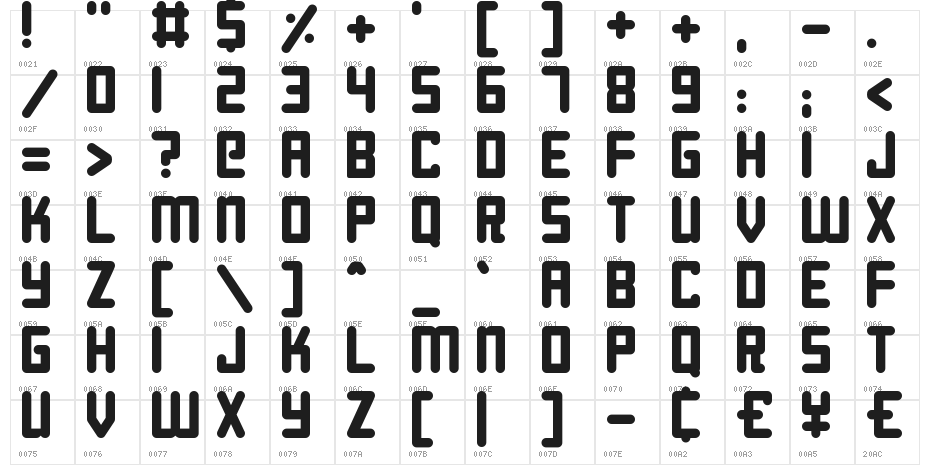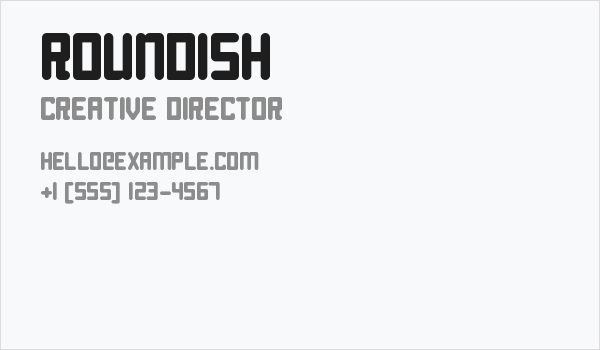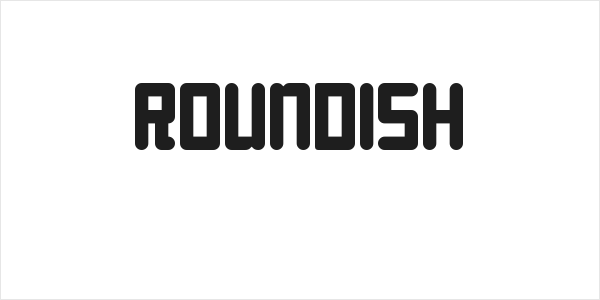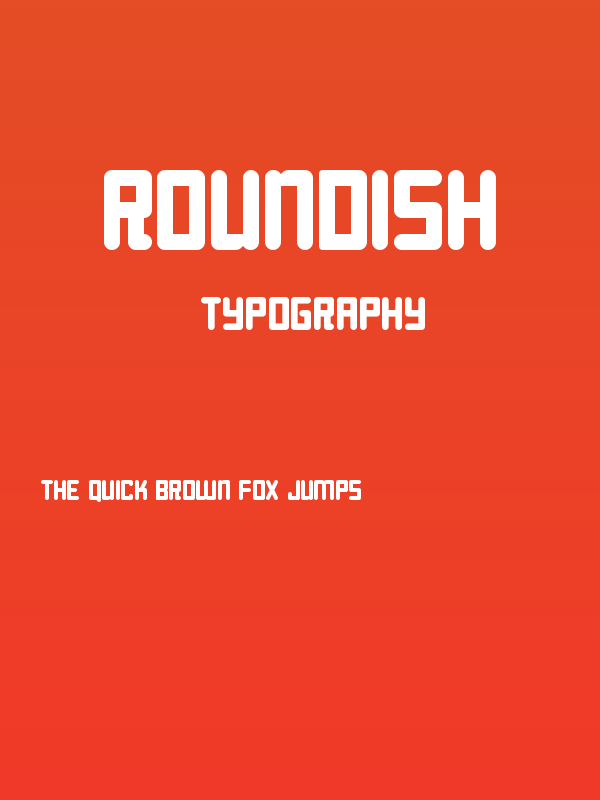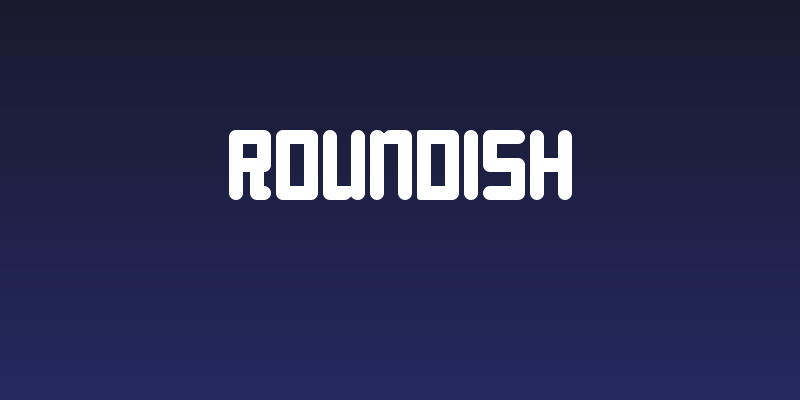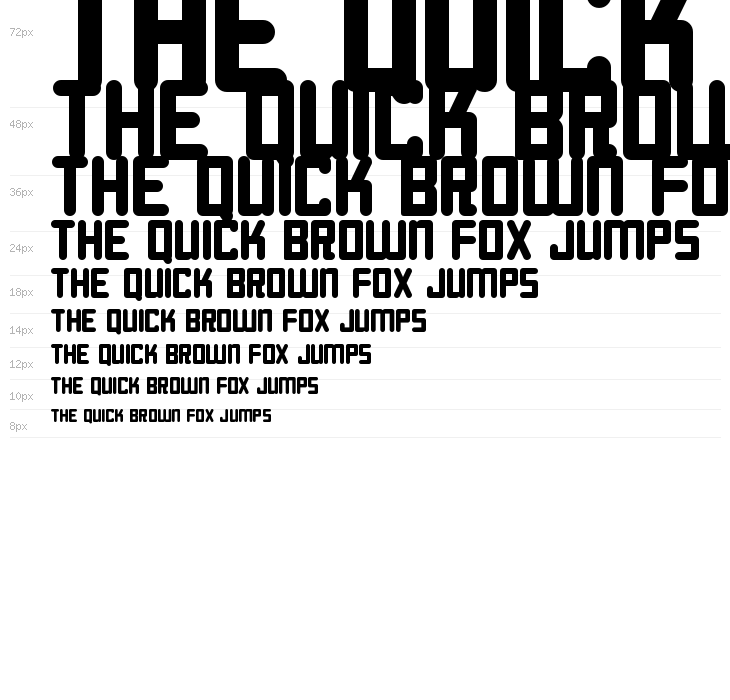
Roundish Font
Roundish Description
This font features a bold and rounded design, characterized by its thick strokes and smooth curves. The letters are uniformly wide, giving it a monospaced appearance, although it is not strictly monospaced. The rounded edges provide a friendly and approachable feel, making it suitable for a variety of applications. The numbers and special characters maintain the same rounded style, ensuring consistency across all glyphs. The font's boldness and rounded nature make it stand out, while still being easy to read. It is versatile enough for both digital and print media, offering a modern yet playful aesthetic.